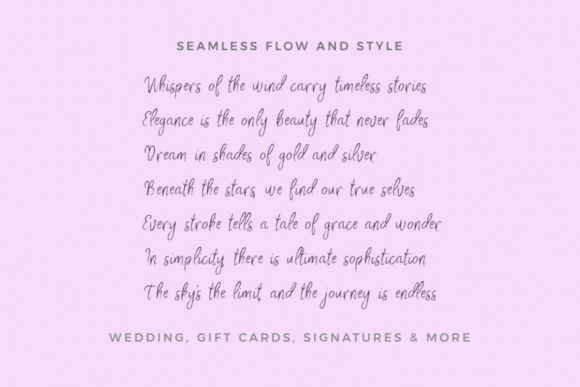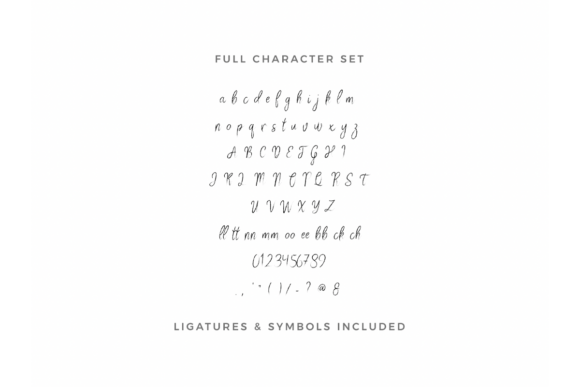
Discover the Timeless Allure of Avalessa Font
Do you remember the first time you fell in love with the handwritten notes of a dear friend or family member? The way the ink danced across the page, infusing every word with warmth and personality? For designers, that same feeling is now within reach with the Avalessa Font, a captivating script font that effortlessly combines handwritten charm and hand-lettering elegance.
As a designer, you’re always on the lookout for that special something that sets your work apart. Avalessa Font delivers, with its impeccable craftsmanship and beautiful simplicity rooted in the artist’s personal touch. This radiant choice is perfect for any project where you want to add a touch of sophistication and warmth. Whether you’re working on a branding project, creating a wedding invitation, or crafting a heartfelt letter, Avalessa Font is sure to leave a lasting impression.
Avalessa Font Key Features
- Font Style: Script, Handwritten
- Unique Characteristics: Avalessa Font features elegant, cursive lines with a touch of sophistication, making it perfect for wedding invitations, greeting cards, and other special occasions.
- Language Support: Multilingual support for most languages, including Latin-based languages and Cyrillic scripts
A Designer’s Honest Review of Avalessa Font
I recently had the chance to work with the Avalessa font, and I must say it’s a unique addition to any design project. Here’s my take on what works well and what doesn’t:
- The Avalessa font has a beautiful, elegant feel to it, perfect for high-end branding and editorial designs.
- Its versatility in terms of font weights and styles makes it easy to use in a variety of applications.
- The font’s refined lines and subtle curves give it a sophisticated, upscale look that’s sure to impress.
- The font’s condensed forms can be a bit challenging to read, especially in smaller font sizes.
- The lack of bold weight options may limit its use in certain design contexts.
- The font’s intricate details can make it difficult to work with in certain design software.
Overall, I think Avalessa font is a solid choice for designers looking to add some sophistication to their projects. While it may have its limitations, its elegant feel and versatility make it a great addition to any design library. With a bit of caution and planning, Avalessa font can help elevate your designs to the next level.
For best results, use Avalessa as a title font to create a beautiful and elegant design.
Use Avalessa to create beautiful and elegant typography in your designs.
Use Avalessa to add a touch of elegance to your presentations and documents.
Tips for Getting the Most Out of Avalessa Font
Use Avalessa as a title font to create a beautiful and elegant design.
Combine Avalessa with other elegant fonts to create a stunning typography.
Experiment with different font sizes and colors to add depth and interest to your design.
Alternatives to Avalessa Font
Great Vibes Font is a beautiful, elegant, and cursive script font. It’s perfect for designing wedding invitations, greeting cards, and other creative projects that require a touch of sophistication.
Comparison to Avalessa Font: Great Vibes Font has a more whimsical and playful feel compared to Avalessa Font, which has a more modern and minimalist design. Great Vibes Font is ideal for projects that require a lot of flair and personality.
Carolyna Pro Font is a modern and sophisticated script font with a touch of elegance. It’s perfect for designing luxury brands, high-end products, and other creative projects that require a sense of sophistication and refinement.
Comparison to Avalessa Font: Carolyna Pro Font has a more refined and luxurious feel compared to Avalessa Font, which has a more modern and minimalist design. Carolyna Pro Font is ideal for projects that require a sense of exclusivity and high-end quality.
Alex Brush Font is a beautiful and elegant script font with a touch of whimsy. It’s perfect for designing creative projects such as book covers, magazine titles, and other publications that require a touch of sophistication and elegance.
Comparison to Avalessa Font: Alex Brush Font has a more playful and whimsical feel compared to Avalessa Font, which has a more modern and minimalist design. Alex Brush Font is ideal for projects that require a lot of creativity and personality.
Q: Is the Avalessa Font optimized for accessibility?
Yes, the Avalessa Font is designed with accessibility in mind. It meets or exceeds the requirements for readability and usability set forth by the Web Content Accessibility Guidelines (WCAG 2.1). The font is also optimized for use with screen readers and other assistive technologies.